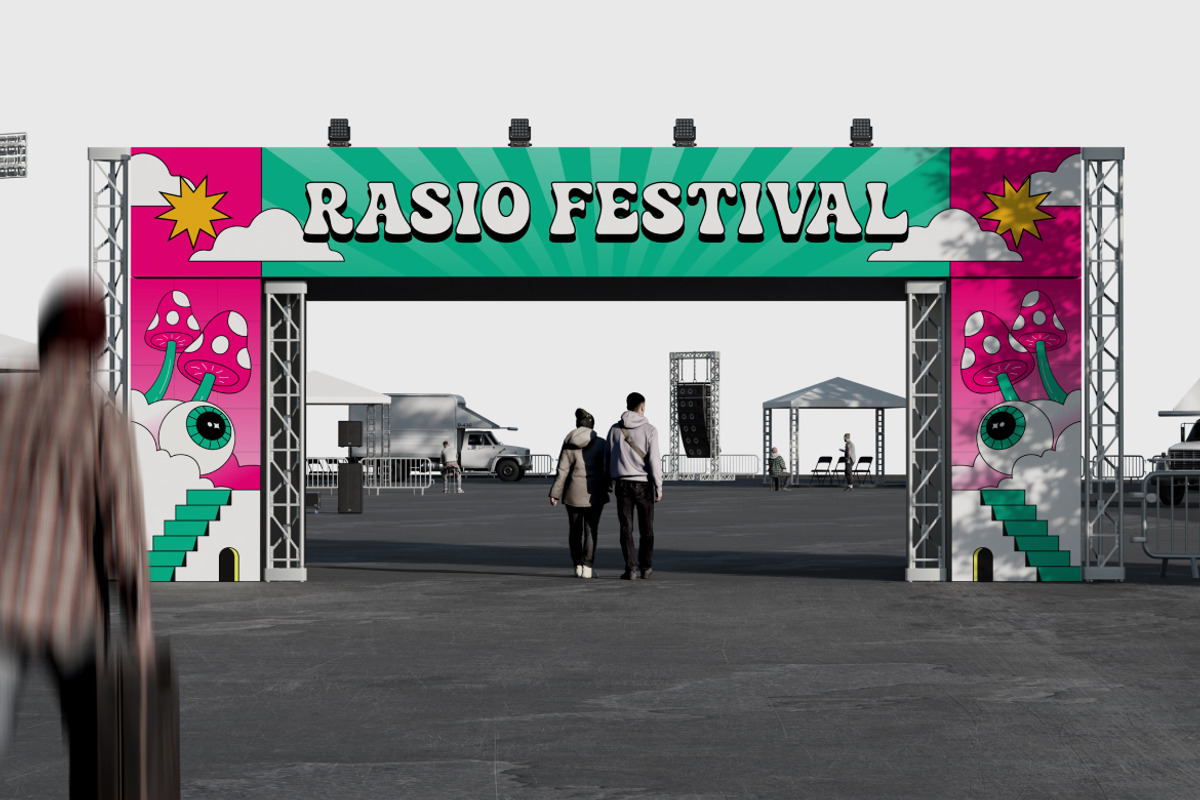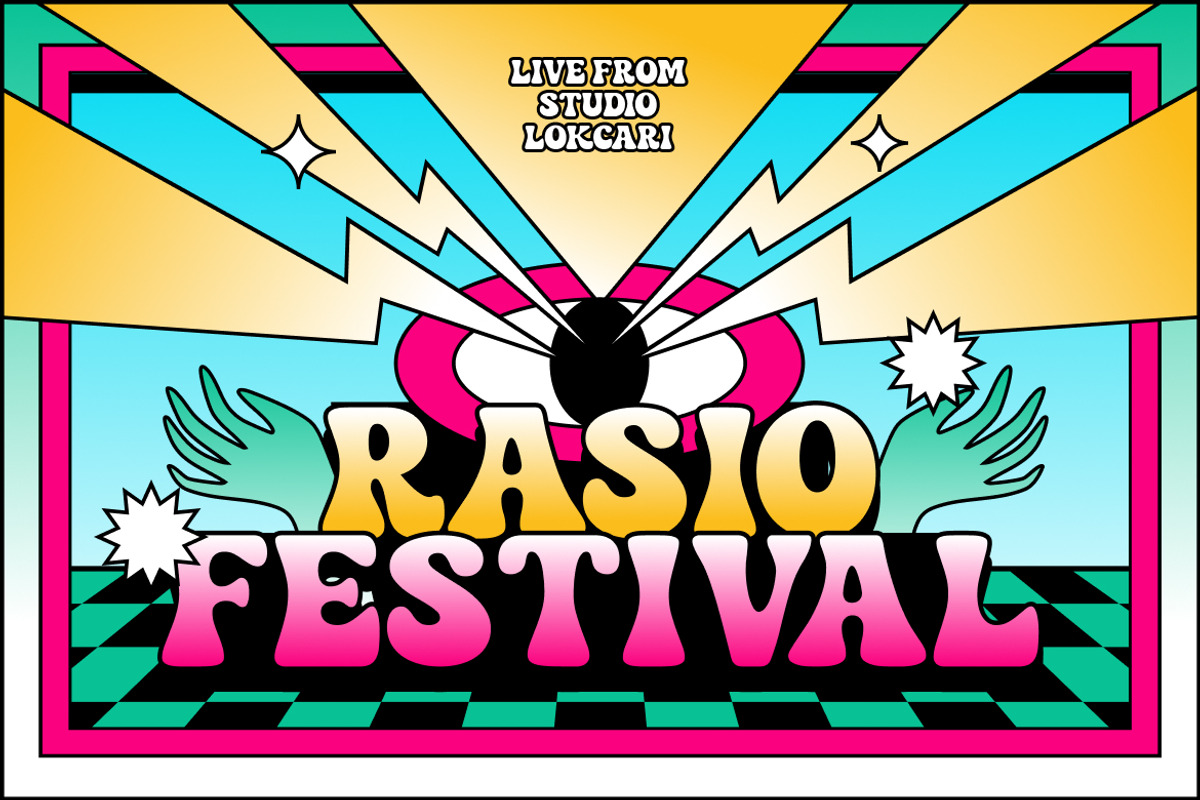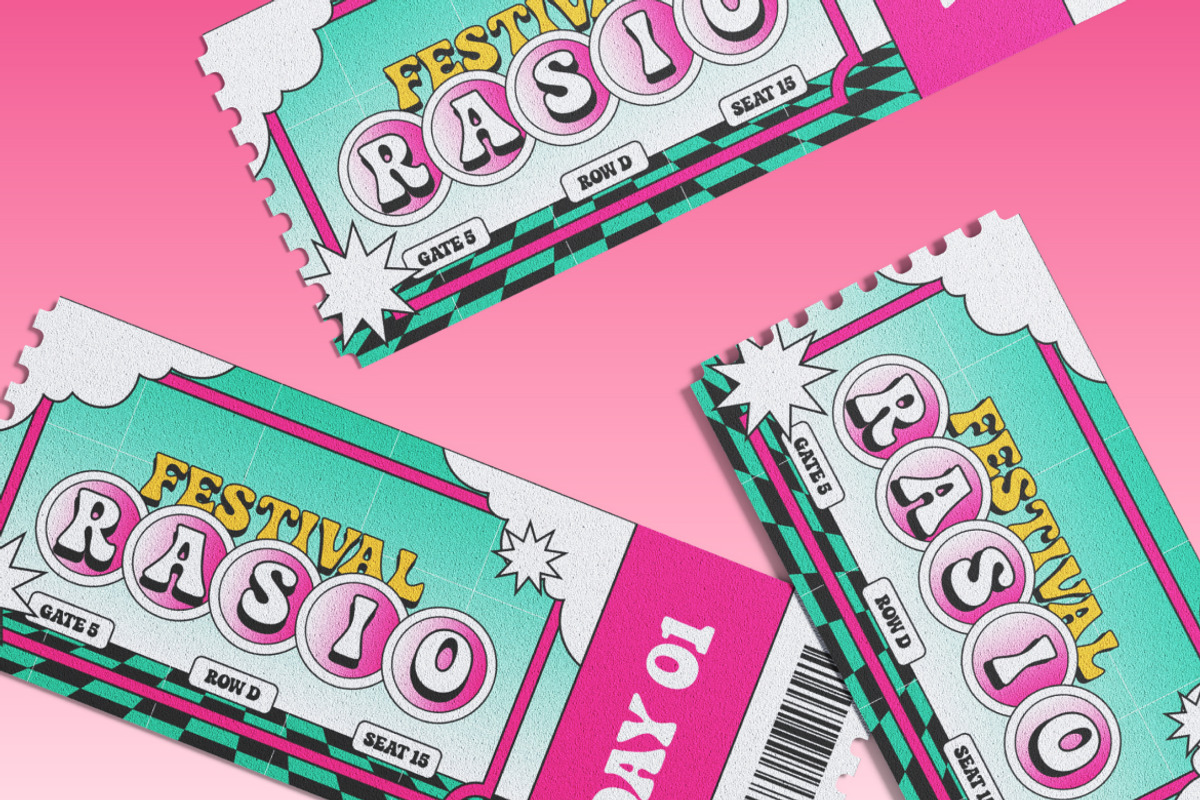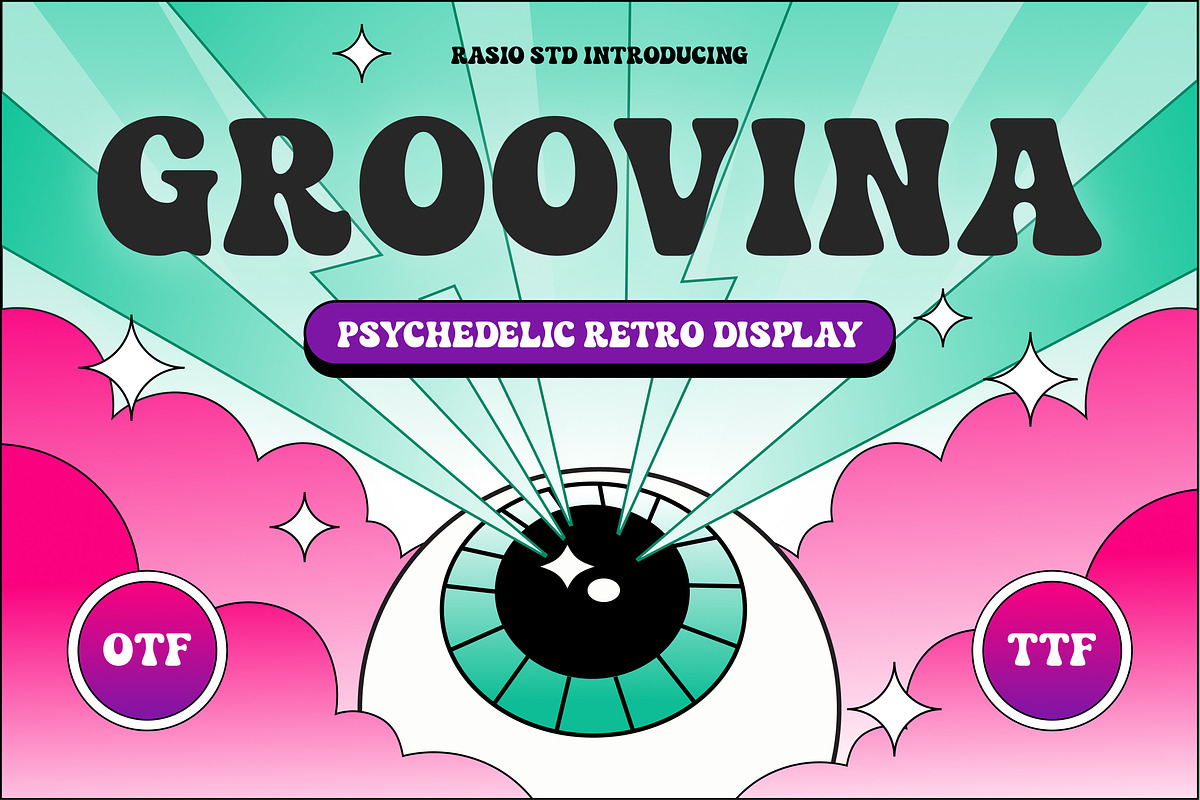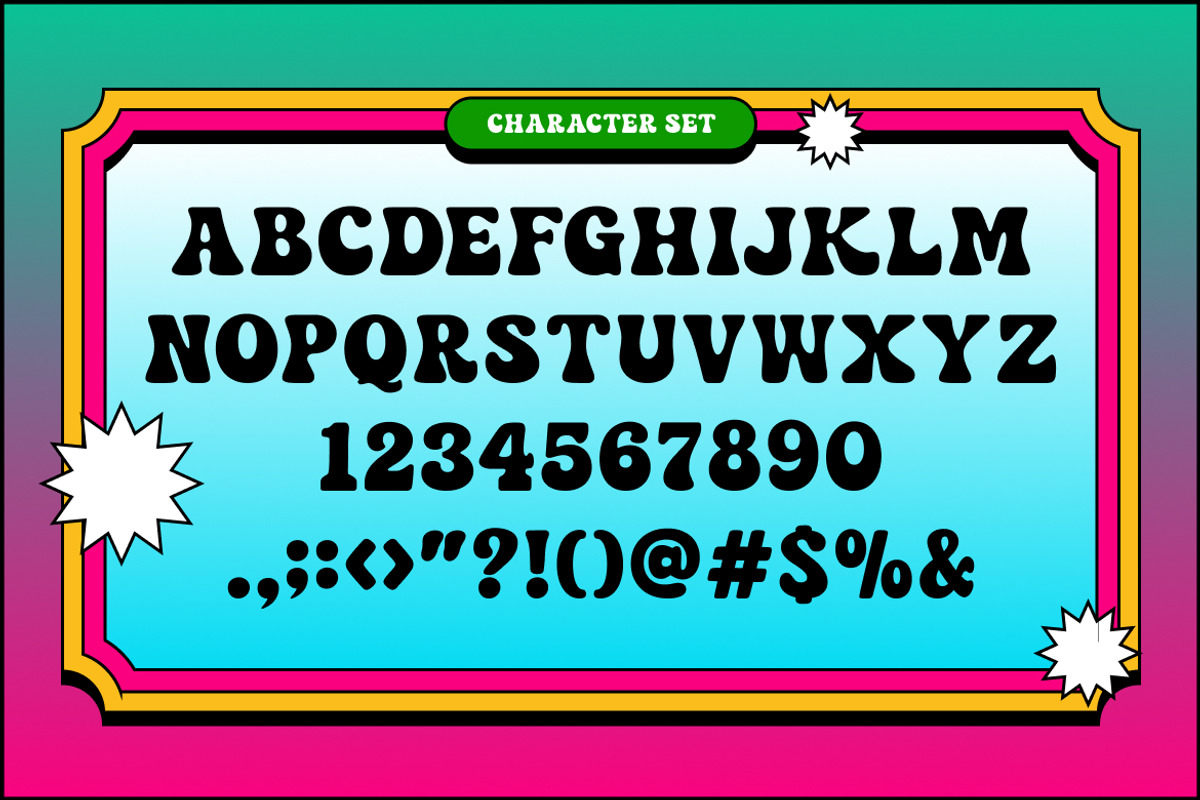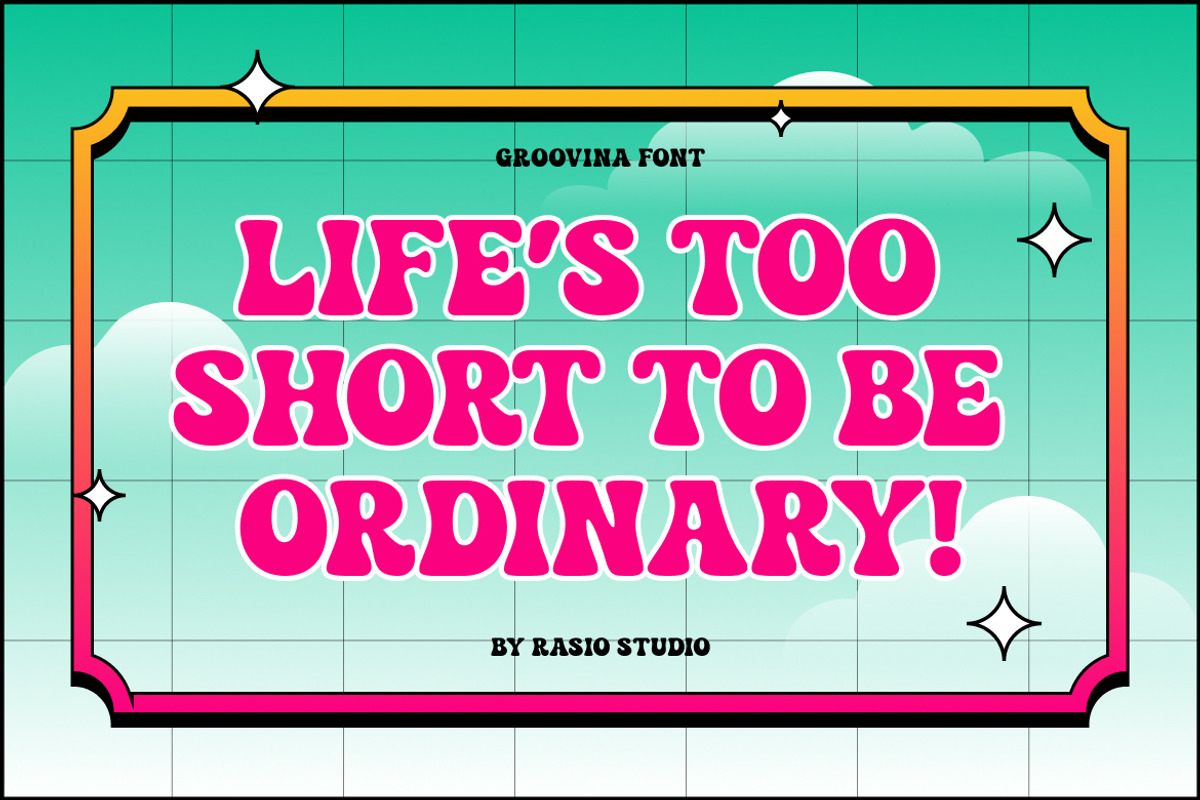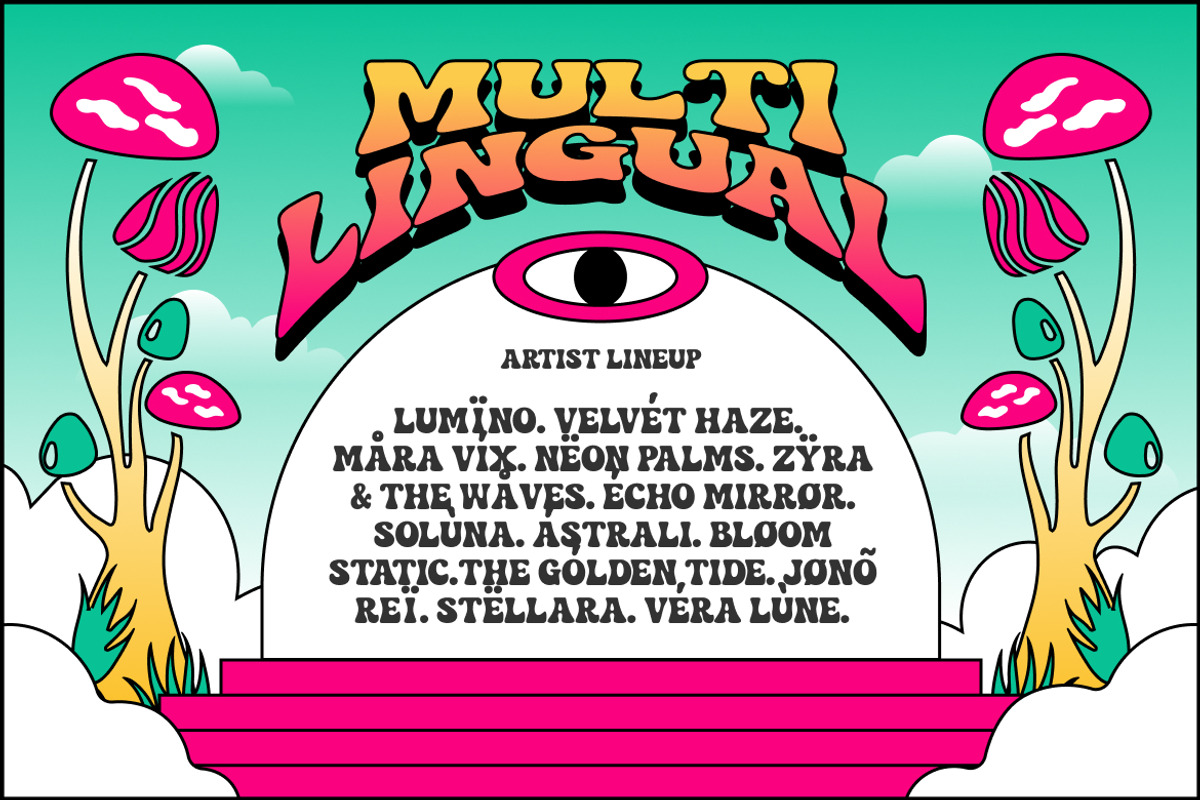
Groovina Psychedelic Retro Font
Groovina is a bold psychedelic retro display font inspired by 70s pop culture, vintage music posters, and groovy festival aesthetics. Featuring thick, bubbly letterforms with soft curves and playful proportions, this typeface delivers strong personality and nostalgic energy. The font includes uppercase letters, numbers, and punctuation, designed for impactful headlines and expressive branding.
Groovina is ideal for music festival posters, retro-themed branding, album covers, streetwear graphics, merchandise design, event promotions, social media campaigns, and bold packaging concepts. Its expressive and playful personality makes it perfect for projects that demand strong visual impact and nostalgic 70s vibes.
- Bold psychedelic letterforms with chunky, high-impact shapes
- Soft, inflated curves inspired by 70s groovy typography
- Playful exaggerated proportions for strong visual personality
- Smooth rounded edges that enhance retro warmth
- Tight, display-focused spacing for powerful headline presence
- Music festival posters and retro concert promotions
- Album covers and psychedelic band merchandise
- Streetwear branding and bold graphic apparel
- Vintage-inspired packaging and product labels
- Eye-catching social media graphics and YouTube thumbnails
- Event flyers and groovy party invitations
Groovina brings psychedelic retro vibes to every headline